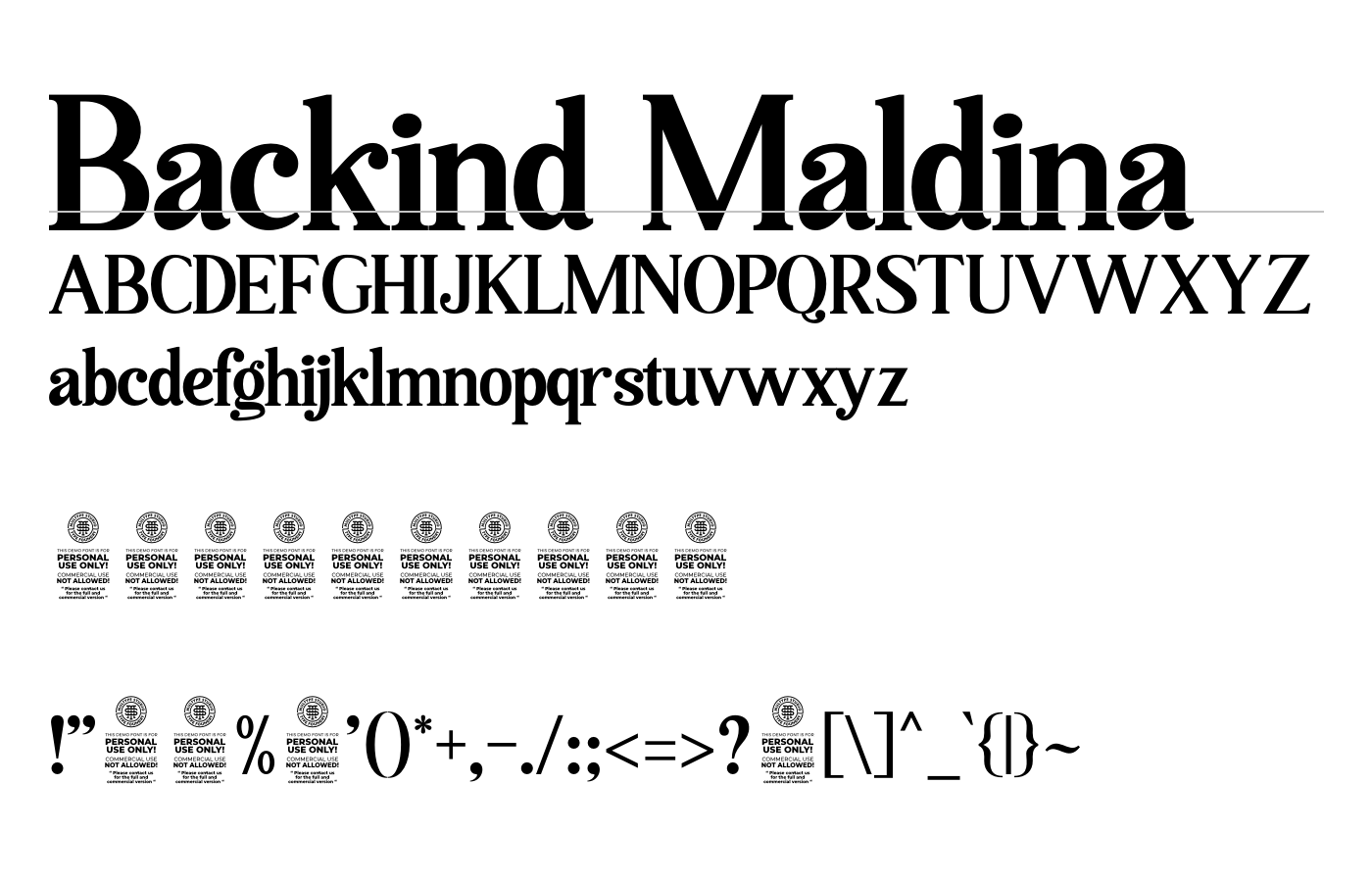
Backind Maldina is a serif font that balances elegance with a touch of bold presence, featuring strong contrast between thick and thin strokes and distinctive bracketed serifs. Its upright, medium-width letterforms and classic double-story characters give it a refined, traditional feel that works beautifully in editorial design, branding, and sophisticated headlines. This font suits projects seeking a timeless, professional look with a hint of vintage charm.
Backind Maldina Font
About Backind Maldina Font